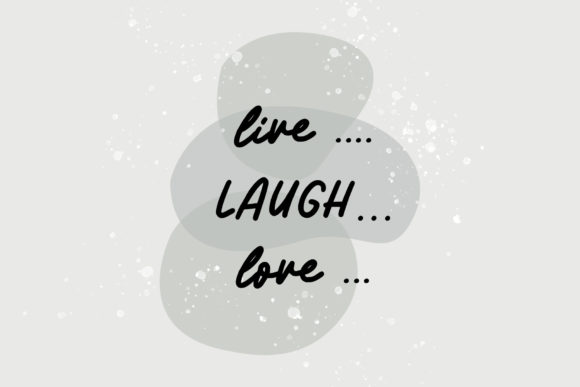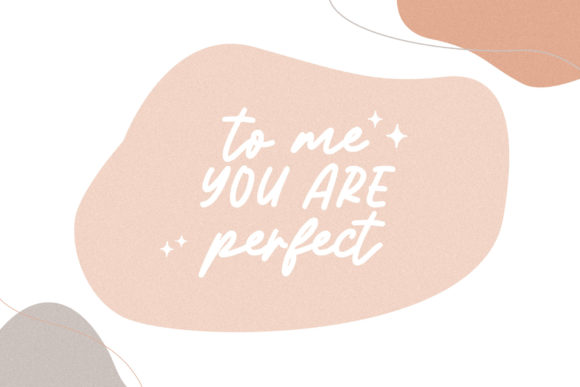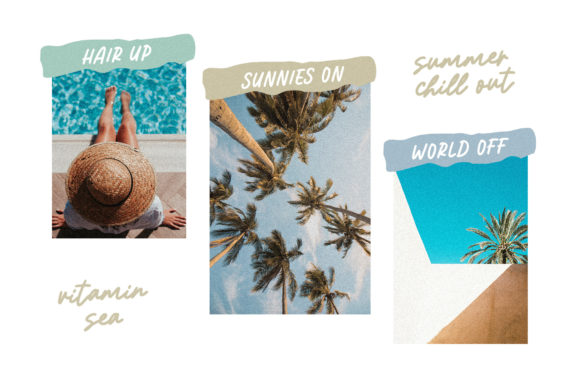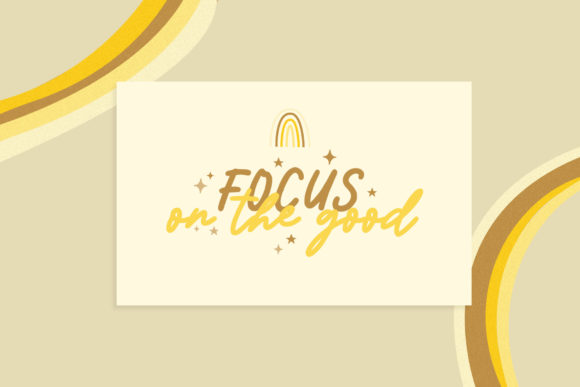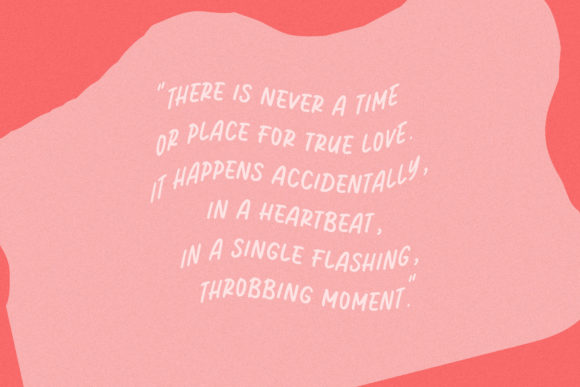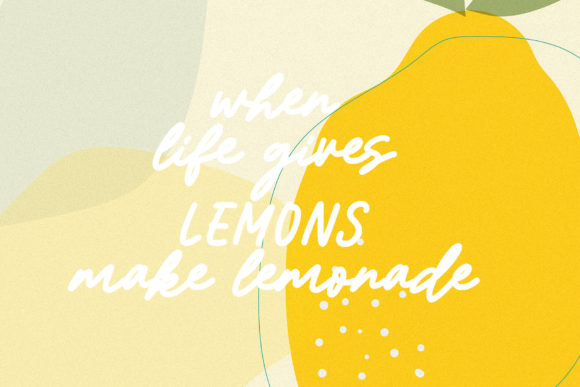
Introducing Couple Dream Font: The Perfect Pairing for Your Design Needs
Are you a designer or crafter looking for a font that can add a touch of elegance and playfulness to your projects? Look no further than Couple Dream Font, a beautifully crafted pair of fonts designed to complement each other perfectly. In this article, we’ll dive into the world of Couple Dream Font, exploring its features, benefits, and uses, as well as provide tips and inspiration for incorporating it into your designs.
The Story Behind Couple Dream Font
Couple Dream Font is a thoughtfully designed font duo that consists of two unique fonts, carefully crafted to work together in harmony. The fonts are designed to be versatile, making them suitable for a wide range of applications, from crafting and scrapbooking to branding and advertising. Whether you’re a seasoned designer or a DIY enthusiast, Couple Dream Font is the perfect choice for adding a chic and cheery touch to your projects.
Key Features of Couple Dream Font
- Complementary Fonts: Couple Dream Font consists of two fonts that are designed to complement each other perfectly, allowing you to mix and match them to create stunning visual effects.
- Versatile: These fonts are ideal for a wide range of applications, including crafting, scrapbooking, branding, and advertising.
- High-Quality: The fonts are designed with high-quality and clarity in mind, ensuring that they look great in any size or resolution.
Benefits of Using Couple Dream Font
So, why choose Couple Dream Font for your design needs? Here are just a few benefits of using this amazing font duo:
- Adds Visual Interest: Couple Dream Font adds a touch of elegance and playfulness to your designs, making them stand out from the crowd.
- Enhances Creativity: With Couple Dream Font, you can experiment with different font combinations and styles to create unique and eye-catching designs.
- Saves Time: The fonts are easy to use and come with a range of features, saving you time and effort in your design process.
- Perfect for Branding: Couple Dream Font is ideal for branding and advertising, helping you to create a consistent and professional visual identity.
Using Couple Dream Font in Your Designs
So, how can you use Couple Dream Font in your designs? Here are a few ideas to get you started:
- Crafting and Scrapbooking: Use Couple Dream Font to add a personal touch to your crafts and scrapbooking projects.
- Branding and Advertising: Use the fonts to create a consistent visual identity for your brand, including logos, business cards, and social media graphics.
- Digital Design: Use Couple Dream Font in your digital designs, including website headers, social media graphics, and email newsletters.
To get the most out of Couple Dream Font, here are a few tips and inspiration ideas:
- Experiment with Font Combinations: Try pairing the two fonts in different ways to create unique and eye-catching visual effects.
- Add Texture and Patterns: Add texture and patterns to your designs to give them an extra layer of depth and interest.
- Play with Color: Experiment with different colors and color combinations to add a pop of color to your designs.
| Font Name | Couple Dream Font |
| Author | MJB Letters |
In conclusion, Couple Dream Font is a beautifully crafted font duo that is perfect for designers and crafters looking to add a touch of elegance and playfulness to their projects. With its complementary fonts, versatility, and ease of use, Couple Dream Font is the perfect choice for a wide range of applications. Whether you’re a seasoned designer or a DIY enthusiast, Couple Dream Font is sure to inspire your creativity and take your designs to the next level.